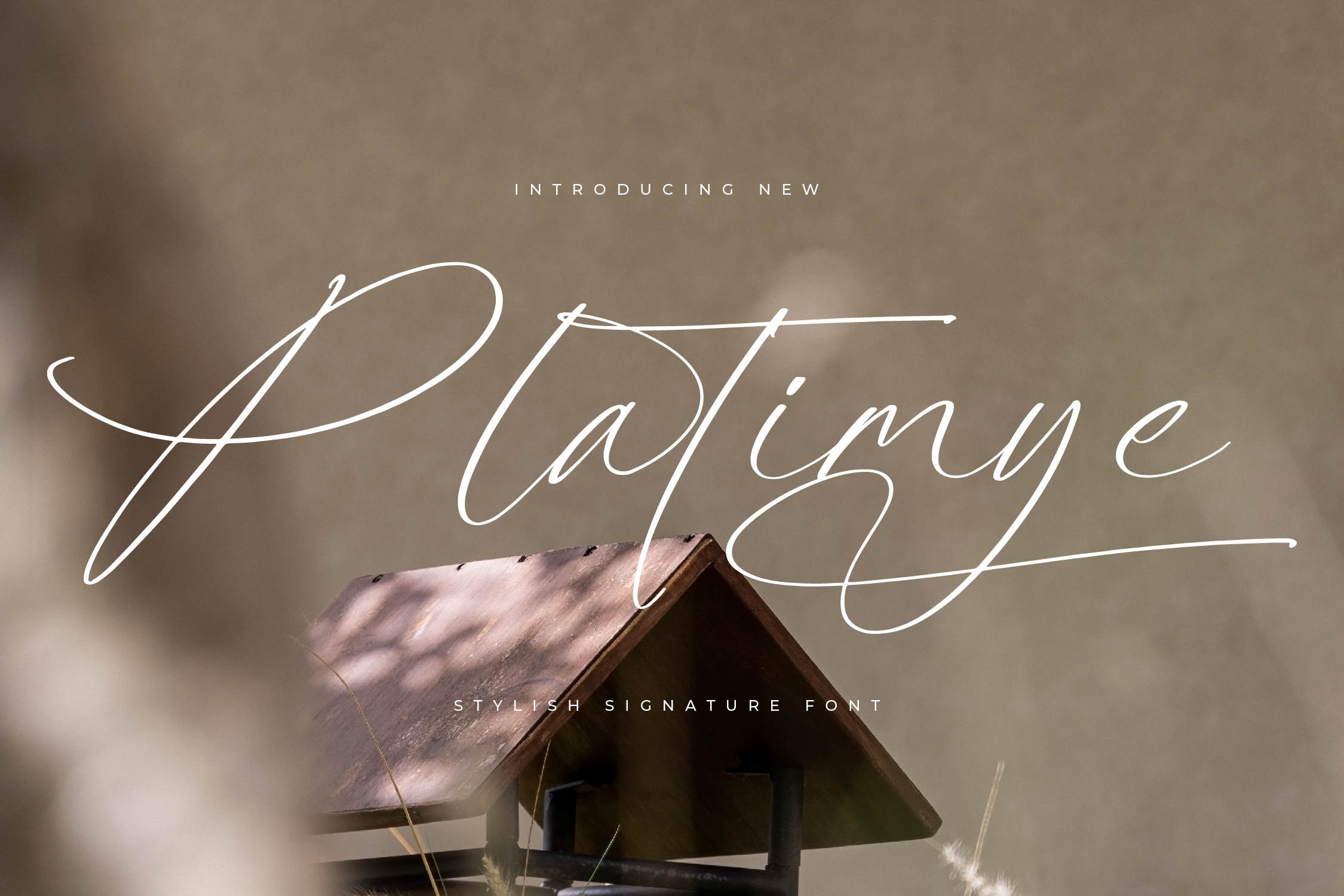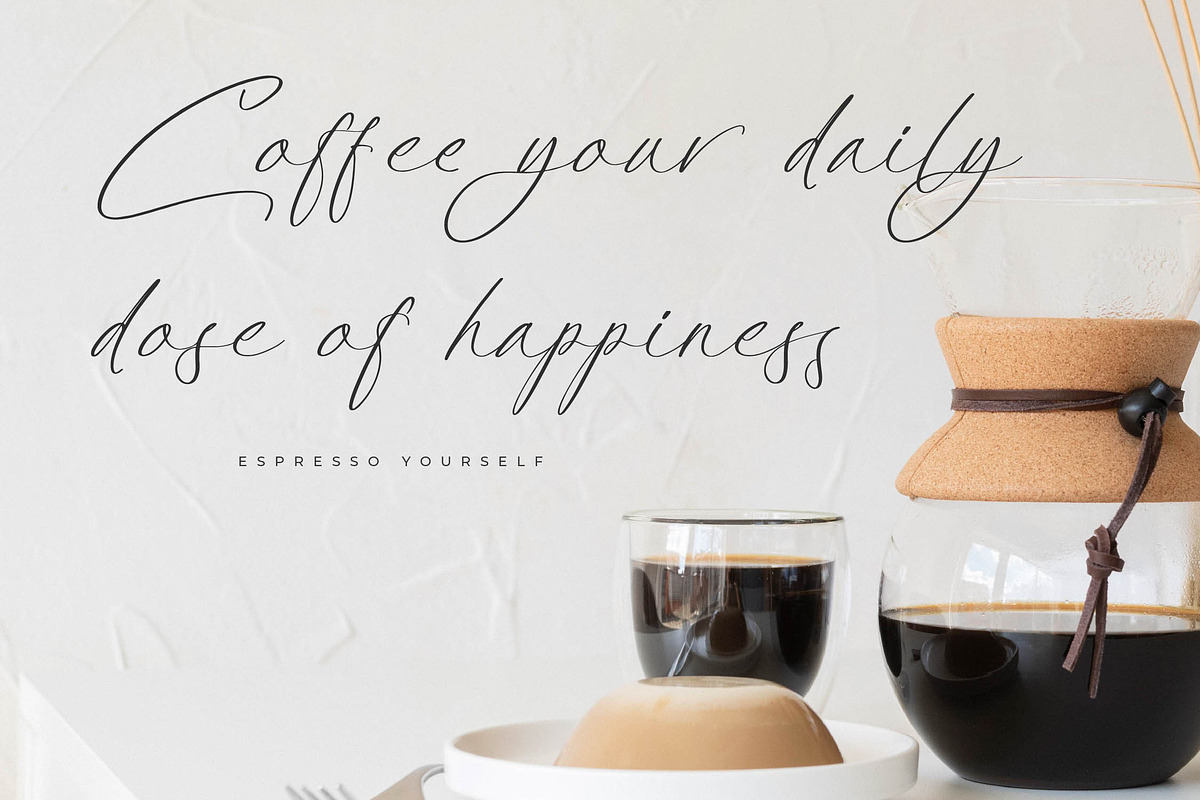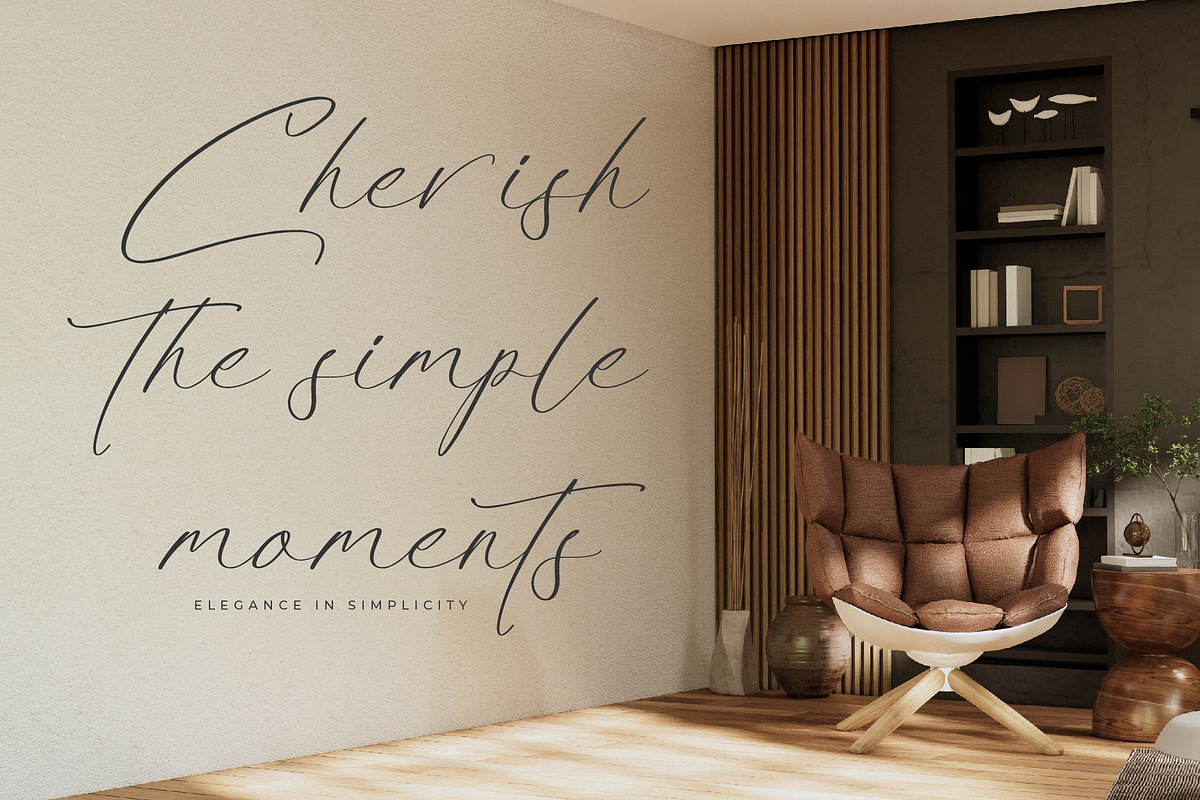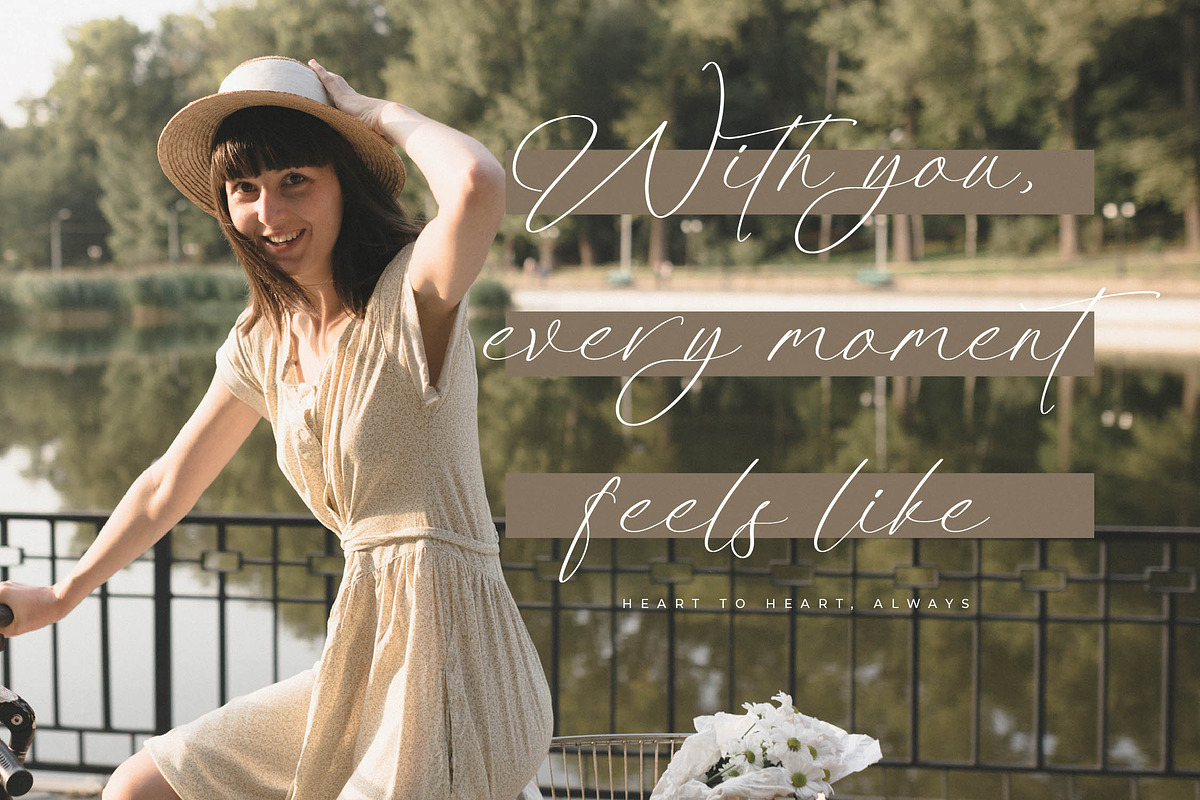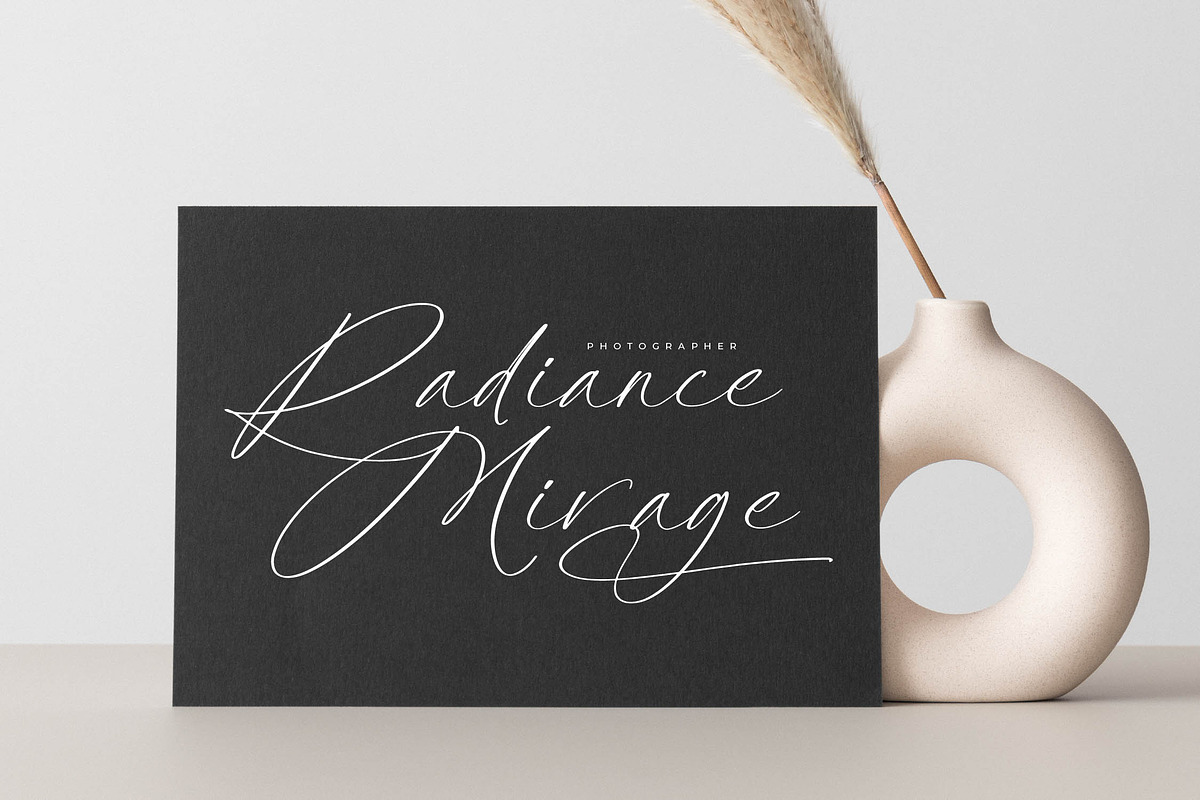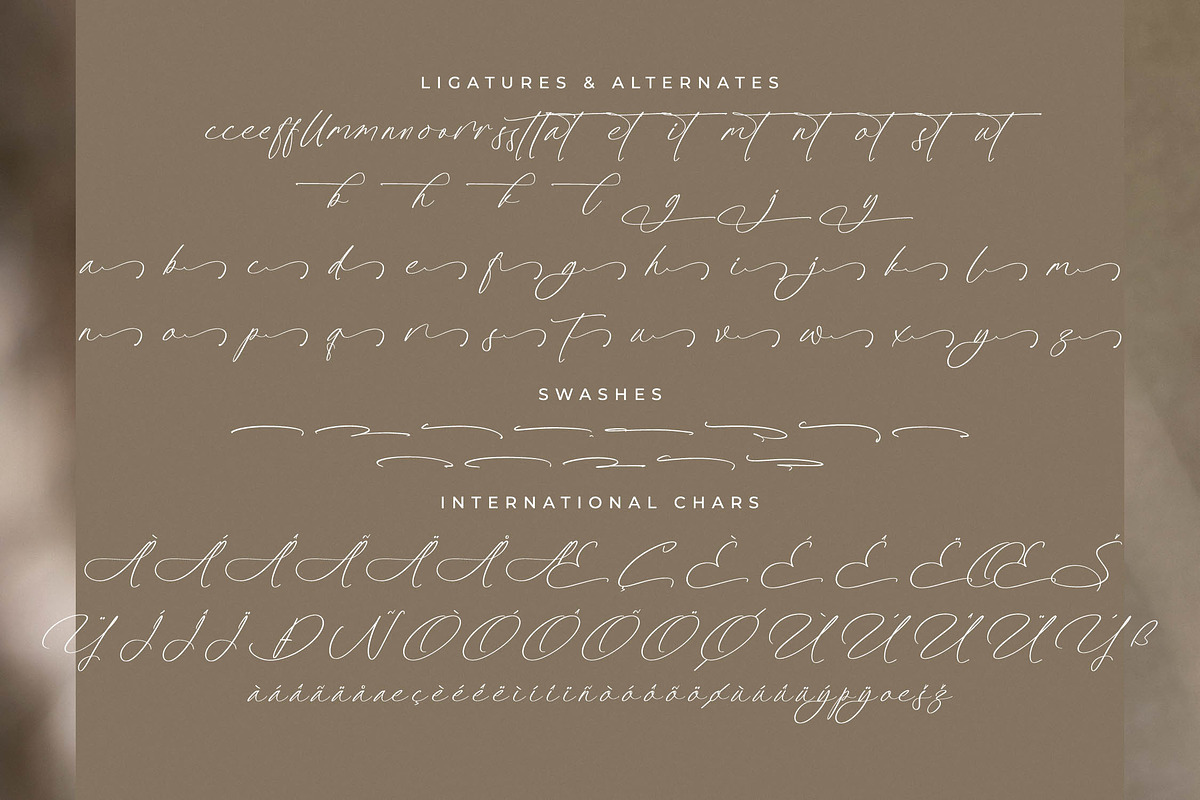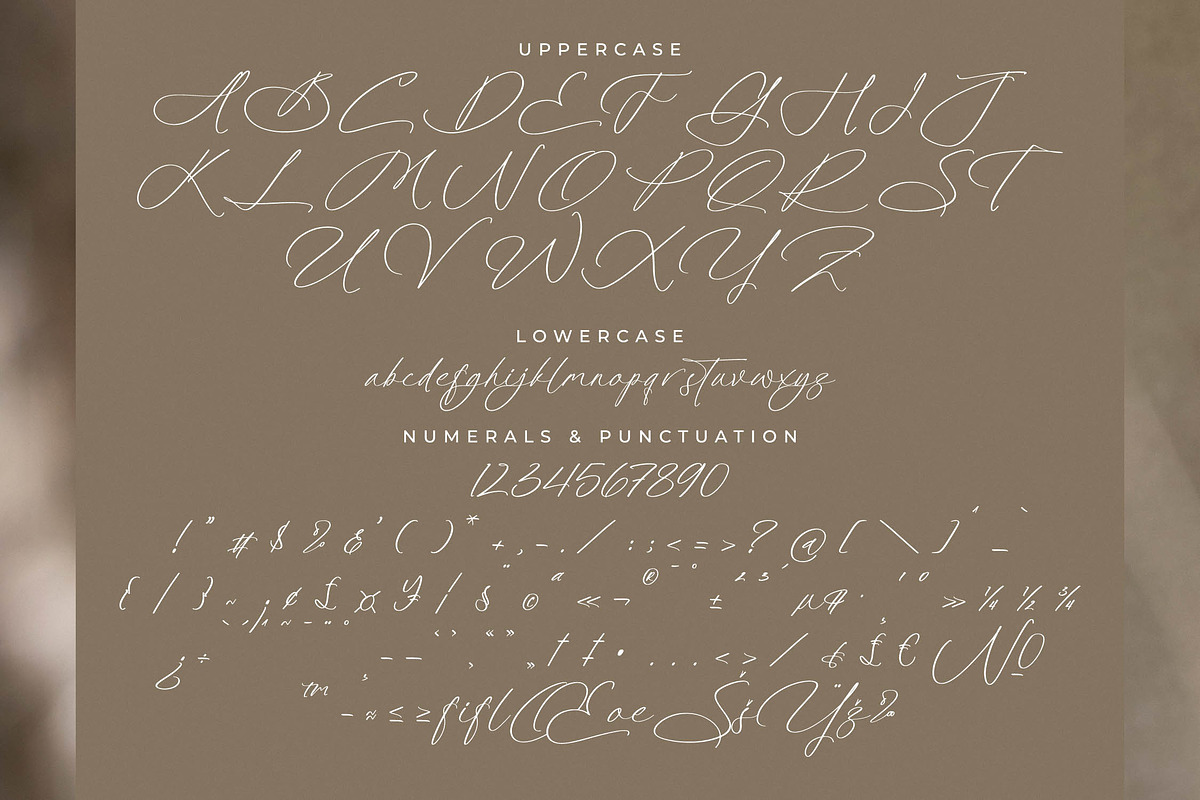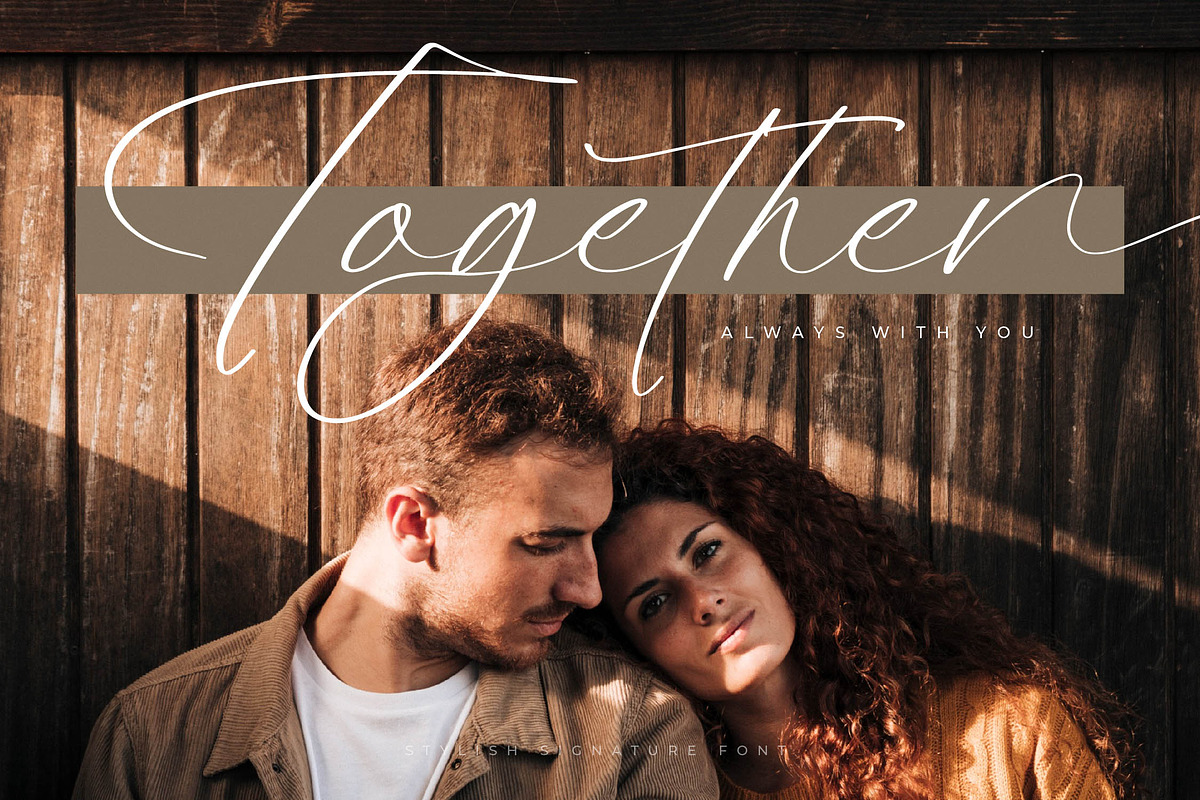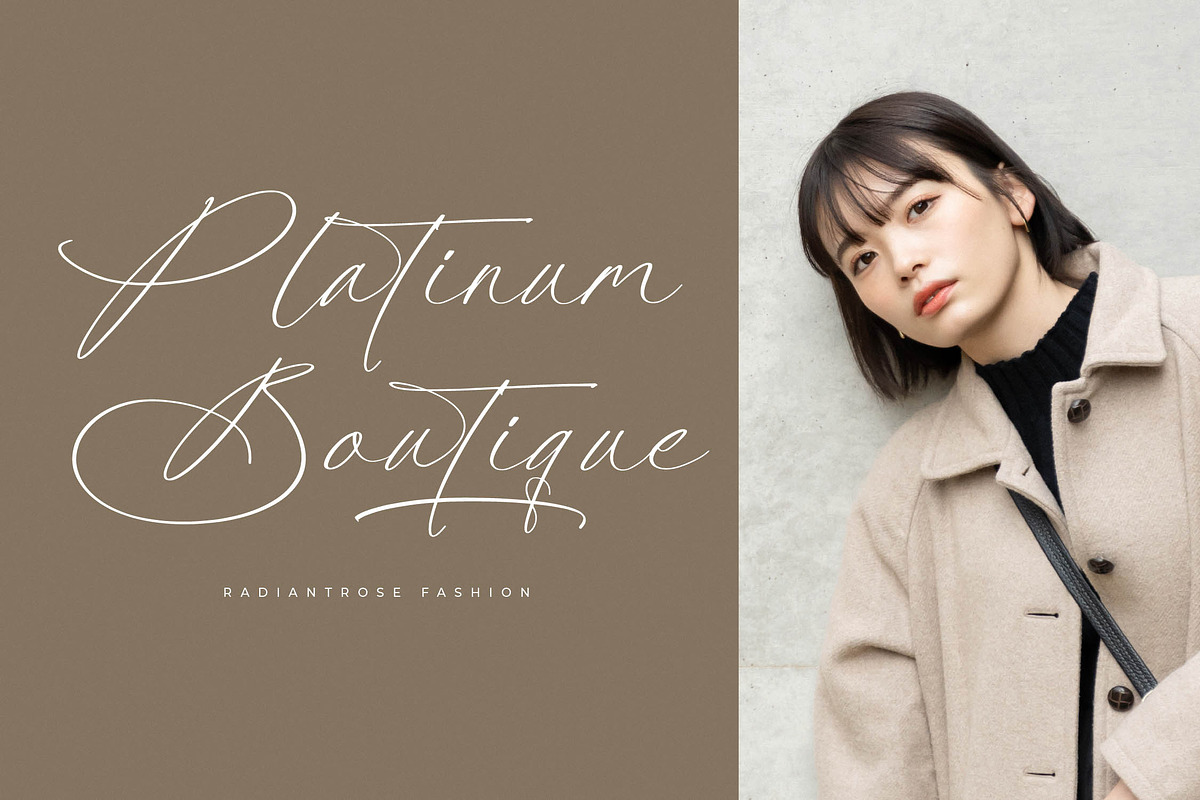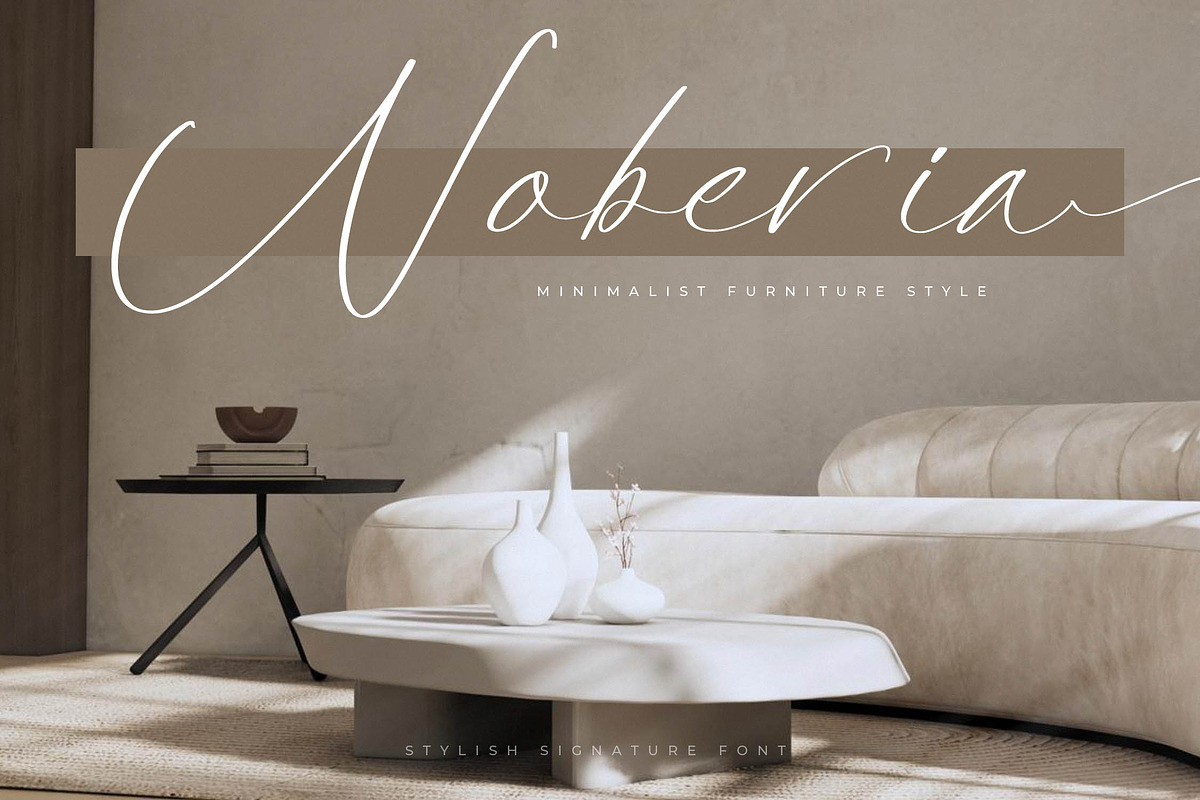
Platimye Stylish Signature Font
Platimye – Stylish Signature Font , from Letterena, is a Luxury Script font, suitable for any projects such as: logos, branding projects, homeware designs, product packaging, mugs, quotes, posters, shopping bags, t-shirts, book covers, name card, invitation cards, greeting cards, label, photography, watermark, special events, and all your other luxury and beautiful projects that need a Luxury Script taste.